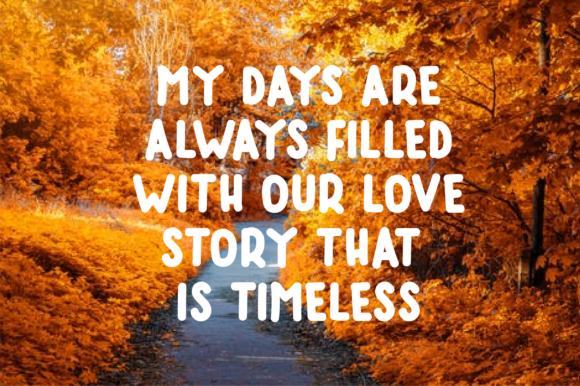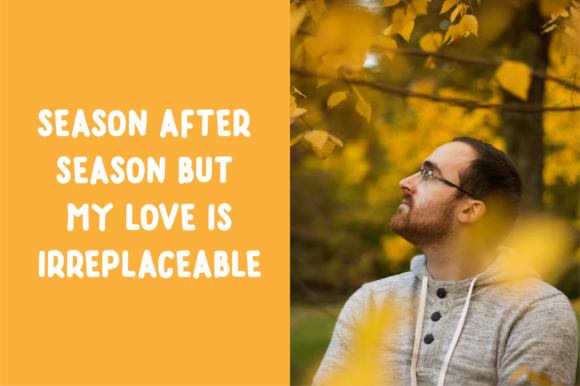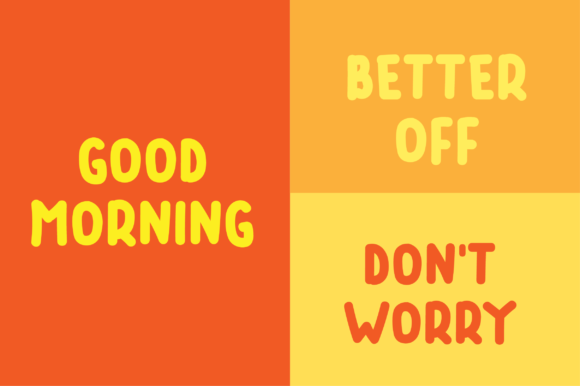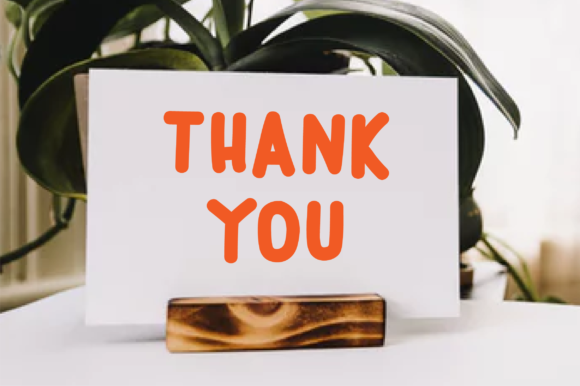
Discover the Unique Charm of Beautiful Autumn Font
As the seasons change and autumn leaves start to fall, designers and crafters are on the lookout for fonts that capture the essence of this cozy and vibrant season. If you’re searching for a font that embodies the bold and playful spirit of autumn, look no further than the Beautiful Autumn Font. This stunning display font is sure to inspire your next creative project with its unique style and cool vibe.
What Makes Beautiful Autumn Font So Special?
Beautiful Autumn is a cool and fun display font that boasts a bold vibe, making it perfect for designs that require a statement piece. Its unique style is inspired by the natural beauty of autumn, with intricate details and a playful flair that sets it apart from other fonts. Whether you’re working on a project for a client or creating something for personal use, this font is sure to add a touch of autumnal charm to your design.
Key Features of Beautiful Autumn Font
- Bold and Playful Style: Beautiful Autumn Font features a bold and playful style that’s perfect for making a statement in your designs.
- Unique and Intricate Details: The font’s unique style is characterized by intricate details that give it a distinctive look and feel.
- Cool and Fun Vibe: The font’s cool and fun vibe makes it perfect for designs that require a youthful and energetic feel.
- Display Font: Beautiful Autumn Font is a display font, making it ideal for use in headlines, titles, and other prominent design elements.
Uses for Beautiful Autumn Font
Beautiful Autumn Font is a versatile font that can be used in a variety of design projects, including:
- Autumn-Themed Designs: Use the font to create stunning autumn-themed designs, such as posters, flyers, and social media graphics.
- Crafting and Scrapbooking: Add a touch of autumnal charm to your crafting and scrapbooking projects with this beautiful font.
- Branding and Advertising: Use the font to create eye-catching headlines and titles for your branding and advertising projects.
- Digital and Print Designs: The font is suitable for use in both digital and print designs, making it a great addition to your design library.
Tips for Using Beautiful Autumn Font
To get the most out of Beautiful Autumn Font, here are a few tips to keep in mind:
- Use it as a Statement Piece: Use the font as a statement piece in your design, such as in a headline or title.
- Pair it with Complementary Fonts: Pair the font with complementary fonts to create a visually appealing design.
- Experiment with Colors: Experiment with different colors to find the perfect combination that complements the font.
Beautiful Autumn Font is a stunning display font that’s perfect for designers and crafters looking to add a touch of autumnal charm to their designs. With its unique style, bold vibe, and cool and fun flair, this font is sure to inspire your next creative project. So why wait? Get inspired by the Beautiful Autumn Font today and take your designs to the next level!